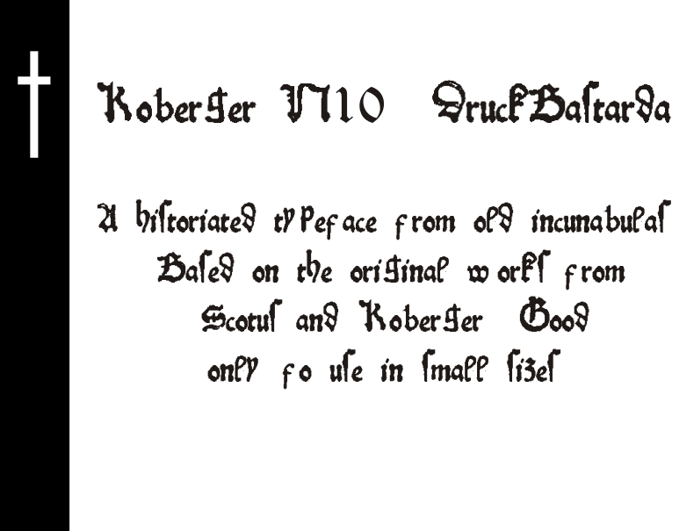
KobergerN10DruckBastarda Font
A historiated typeface from old incunabulas. Based on the original works from Scotus and Koberger. Good only for use in small sizes.
yes, from an incunable
Was this taken from an actual scanned olde document of some sort?